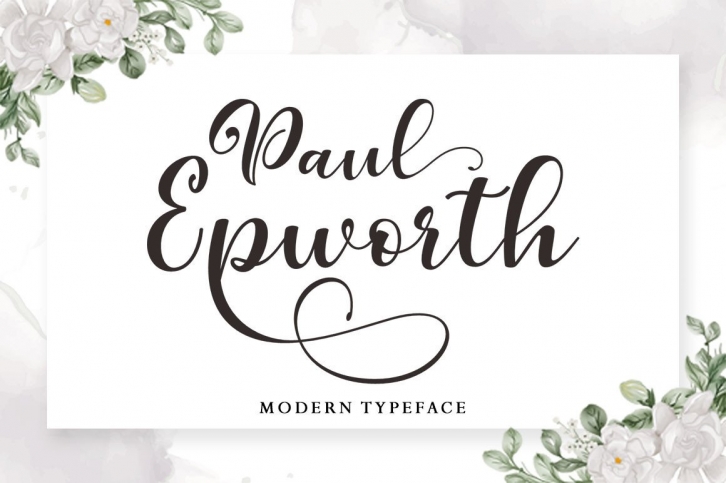
Paul Epworth is a modern and stylish handwritten script font. It looks stunning on wedding invitations, thank you cards, quotes, greeting cards, logos, business cards, and every other design which needs a handwritten touch. This font is PUA encoded which means you can access all the glyphs and ligatures with ease!